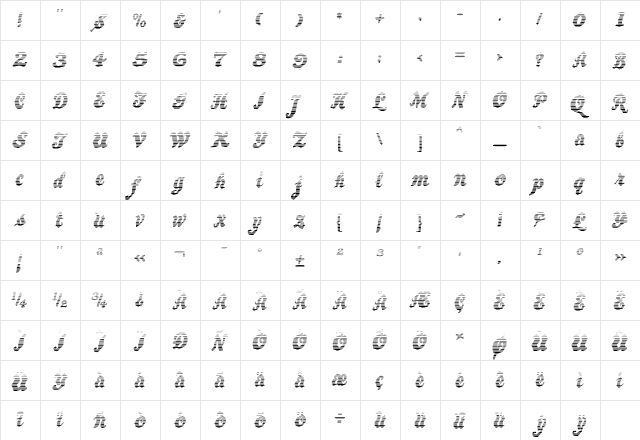
BewareTheNeighboors Shadow Regular
Design Context for BewareTheNeighboors Shadow Typeface
BewareTheNeighboors Shadow brings ornamental detail and strong personality to headlines and identities, where visual impact matters more than quiet functionality.
Font Pairing: Pair with a clean neutral sans-serif for body copy to let BewareTheNeighboors Shadow's character lead without overwhelming the composition.
Pro Tip: Use BewareTheNeighboors Shadow exclusively at display sizes — it was designed to be seen, not read at length. Let a neutral companion handle body copy.